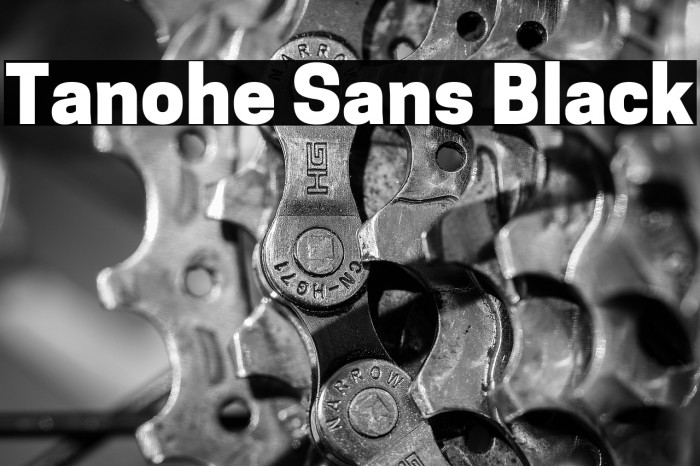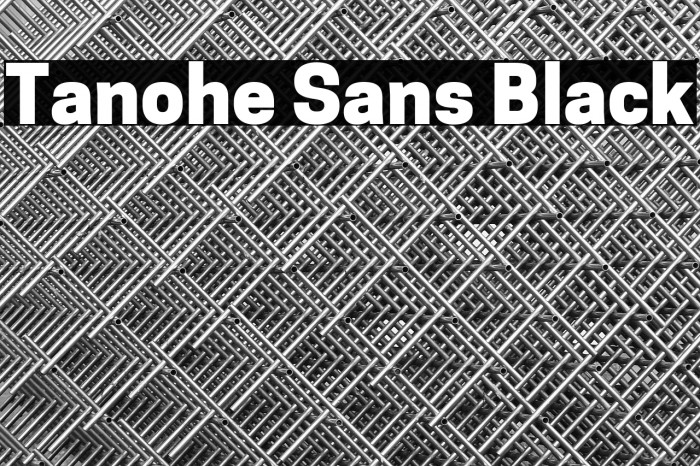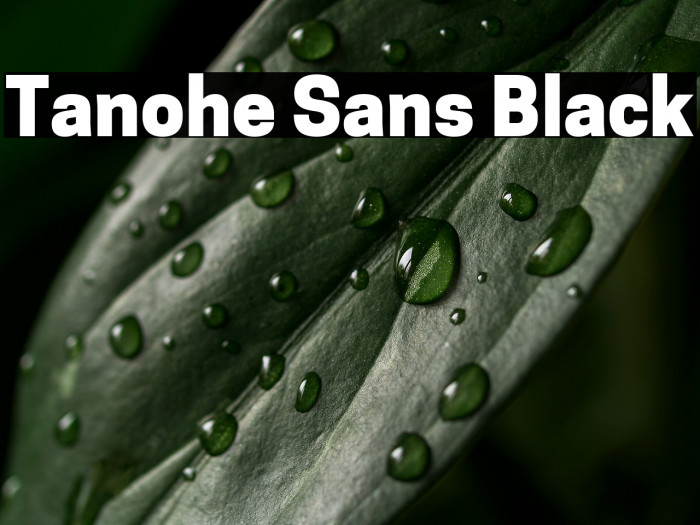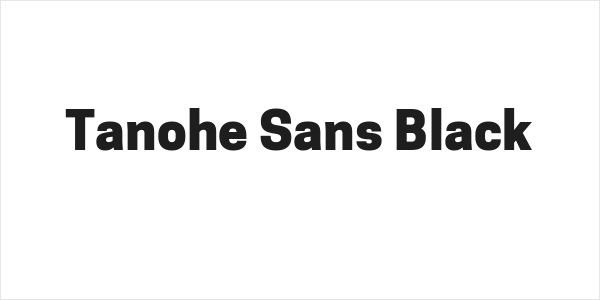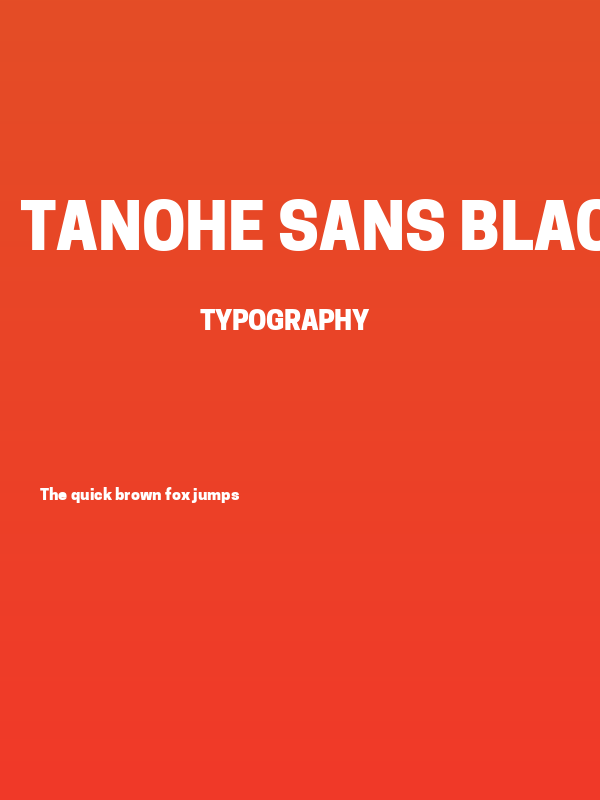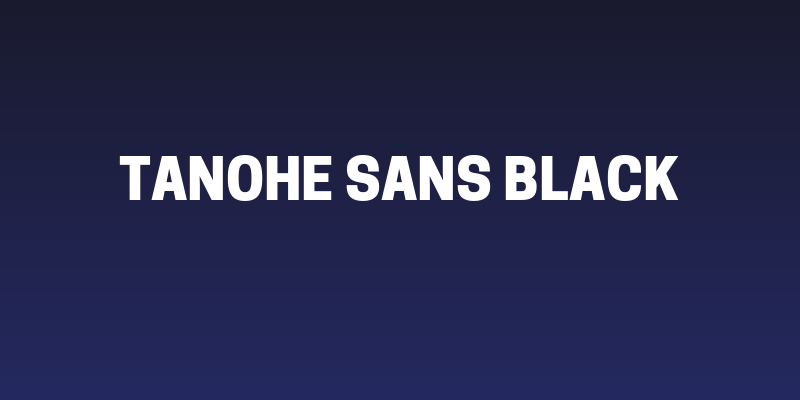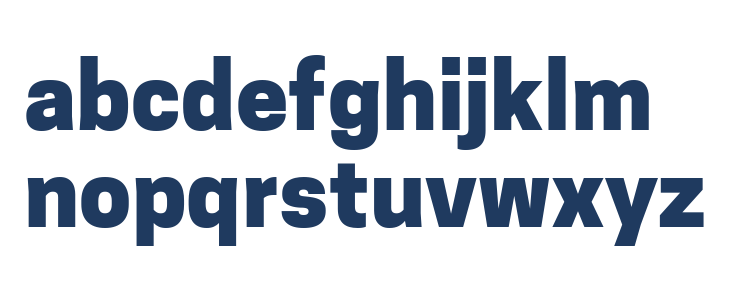
Tanohe Sans Black Font
Tanohe Sans Black Description
This font features a bold and robust design, characterized by its thick strokes and strong presence. The uppercase and lowercase letters maintain a consistent weight, providing a uniform appearance across all characters. The numerals are equally bold, ensuring readability and impact. Special characters are designed with the same boldness, making them stand out effectively. The overall style is modern and clean, suitable for making statements in headlines or logos. Its sans-serif nature gives it a contemporary feel, while the solid structure ensures clarity and legibility.
Proposed ProjectsIdeal for headlines, branding, posters, and any project requiring a strong visual impact.